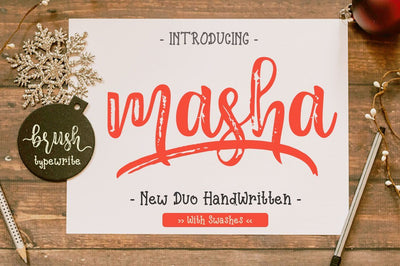
Masha // Duo Handlettered Fonts
'Masha' is a hand lettered font style that perfect for greeting cards, branding, stationery design, social media,
packaging, magazine layouts, prints, logos and more! This unique font features complete lowercase alphabets and uppercase alphabets along with a few other ligatures and stylistic alternates to create a truly handwritten look and feel. Each of 'Masha' has a variety of unique, the script with brush and rough textured and Serif with handwritten textured included coded features to create compelling, handmade outcomes. Multilingual support Western European languages.